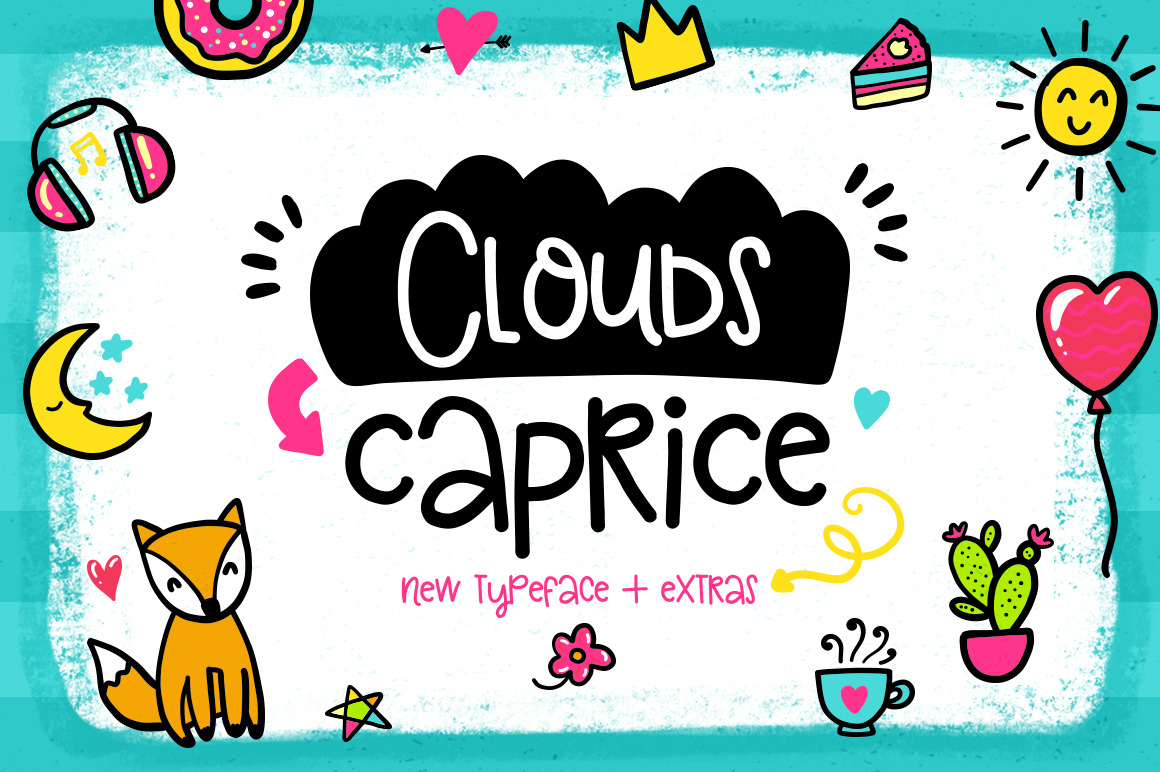
Doodle FONT Clouds Caprice & Extras
♥ Clouds Caprice - typeface for your funny projects! Hand drawn script!♥ This handwritten font is perfect for cards, prints, logos, wedding invitations, arrange illustration and decoration.
- It has upper and lower case letters, numbers, special characters, accents, alternates and ligatures.